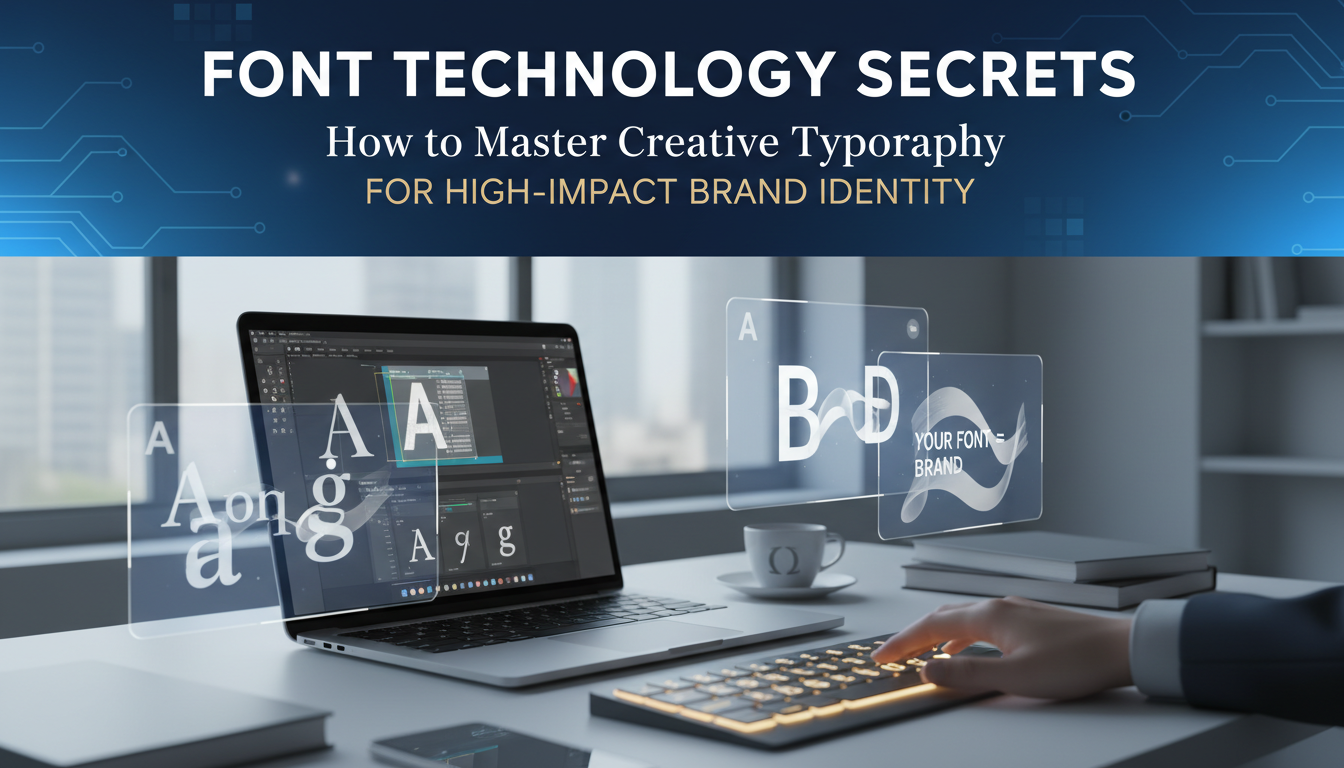
Have you ever wondered why certain brands instantly command trust while others fall flat? The answer often lies hidden in plain sight: their typography. In the digital age, text is not merely for reading, it is a profound visual language. If you are searching for the definitiveFont Technology Secrets: How to Master Creative Typography for High Impact Brand Identity, you have arrived at the ultimate resource.
In my experience, many businesses treat fonts as aesthetic afterthoughts. This is a critical mistake. Understanding the technical backbone how fonts render on different screens, their file sizes, and accessibility standards is exactly what separates amateur layouts from elite brand architectures. Today, we will dive deeply into the technical and creative aspects of typography that can transform a mediocre brand into an unforgettable visual powerhouse.
Unveiling Font Technology Secrets: How to Master Creative Typography for High Impact Brand Identity
To truly leverage typography, you must look far beyond the surface- evel debate of serif versus sans-serif. The modern typographic landscape is driven by sophisticated code and advanced rendering engines. Here is how you can harness them to build a superior digital presence.
1. The Variable Font Revolution
Variable fonts are arguably the most significant typographical advancement in recent years. Instead of loading separate heavy files for regular, bold, and italic weights, variable fonts encompass an entire font family within a single, highly compressed file.
- Performance Boost: By dramatically reducing HTTP requests, your website loads faster. This is crucial for both SEO rankings and user retention.
- Granular Control: You can adjust the weight, width, and slant on a microscopic level using native CSS, giving designers unprecedented creative freedom.
2. Leveraging Advanced OpenType Features
OpenType technology allows modern fonts to contain thousands of characters, including complex ligatures, swashes, and stylistic alternates. Exploring these hidden gems is a core component of utilizing Font Technology Secrets: How to Master Creative Typography for High Impact Brand Identity.
- Standard Ligatures: Prevents awkward and visually jarring spacing between problematic letter pairs (like ‘fi’ or ‘fl’).
- Stylistic Sets: Instantly changes the mood of a typeface, giving your brand a custom, bespoke feel without the massive cost of commissioning a fully custom font.
3. Screen Rendering and Anti-Aliasing
How a font looks on a pristine Retina display versus an older Windows monitor can vary drastically. Subpixel rendering and anti-aliasing techniques dictate the crispness of your text. I always advise testing your brand typography across multiple operating systems. A font that looks razor-sharp on macOS might render unreadably thin on Windows machines.
4. Managing FOUT and FOIT
Flash of Unstyled Text (FOUT) and Flash of Invisible Text (FOIT) are common phenomena when custom web fonts load over slower networks. Elite developers use CSS properties like font-display: swap; to ensure text remains fully visible while the custom font securely downloads. This seemingly minor technical adjustment prevents user frustration and reduces bounce rates dramatically.
The Psychology of Creative Typography in Branding
Technology is only half the battle. The other half is human psychology. Every typeface carries an inherent emotional weight that subconsciously communicates your brand’s core values.
Establishing Bulletproof Visual Hierarchy
High-impact brand identity relies heavily on visual hierarchy. Your audience needs to intuitively know exactly where to look first, second, and third.
- Macro Typography: The overall structure of your text, encompassing headings, subheadings, and generous white space.
- Micro Typography: The exceptionally fine details kerning, tracking, and leading. Master these elements, and your content will literally breathe on the page.
In my observation, brands that implement and strictly enforce micro typographic guidelines appear significantly more authoritative, expensive, and polished.
Actionable Implementation Strategies
Ready to apply these high level concepts? Here are concrete steps to elevate your brand identity from the ground up.
Link and Image Optimization Suggestions
To maximize your SEO architecture alongside your typography, ensure your technical foundation is solid:
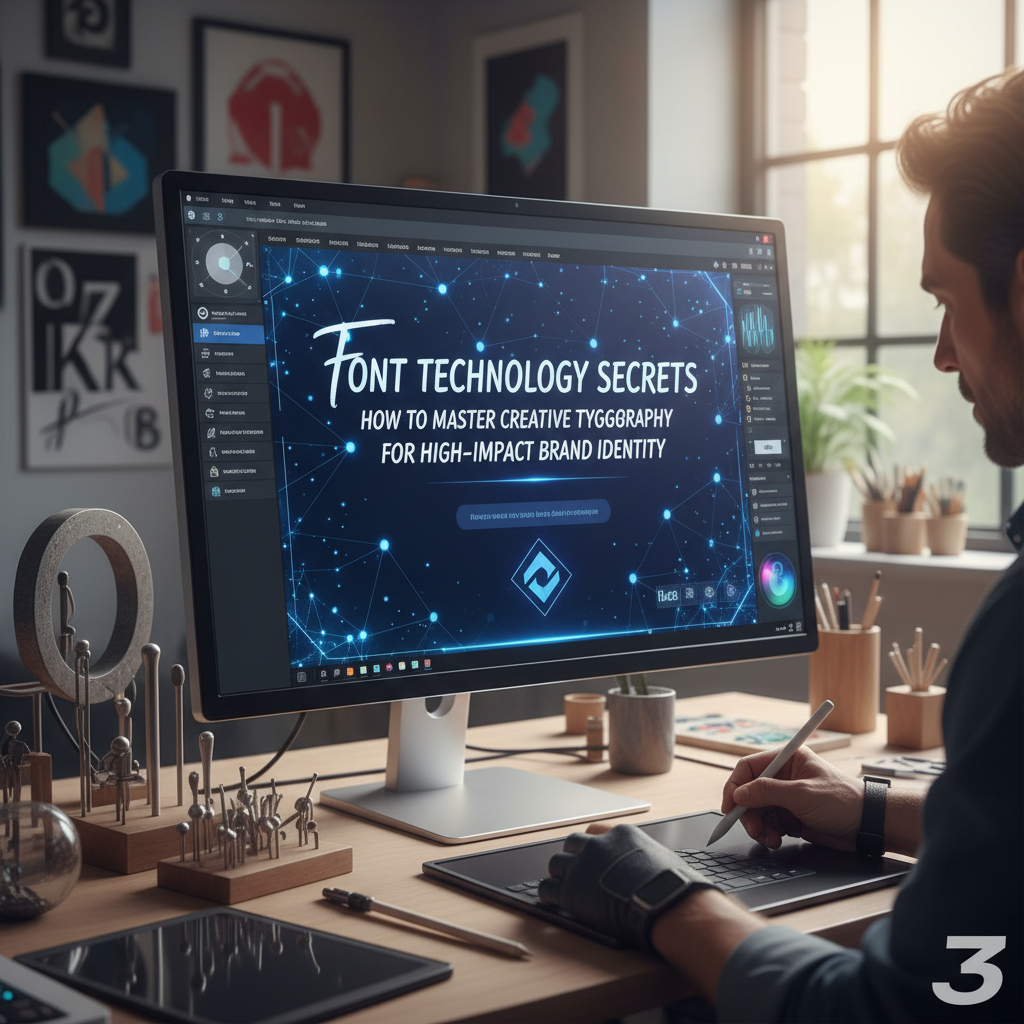
Ensuring Accessibility and Utmost Legibility
Beautiful typography is entirely useless if it cannot be read. High impact brands are, by definition, inclusive brands. Always ensure sufficient color contrast ratios between your text and background (aim for WCAG AA standards at minimum). Furthermore, utilize scalable units (like ‘rem’ or ’em’ in your CSS) rather than fixed pixels. This allows visually impaired users to seamlessly scale text according to their specific browsing needs.
Yes, absolutely but proceed with strategic caution. Platforms like Google Fonts offer high quality, reliable options. However, investing in a premium or custom typeface can provide a deeply unique competitive edge that free fonts cannot match.
Q: How exactly do variable fonts impact overall website speed?
They improve it dramatically. By consolidating multiple font styles, weights, and widths into one single file, variable fonts massively reduce server HTTP requests and overall page weight, directly leading to lightning-fast, highly optimized load times.